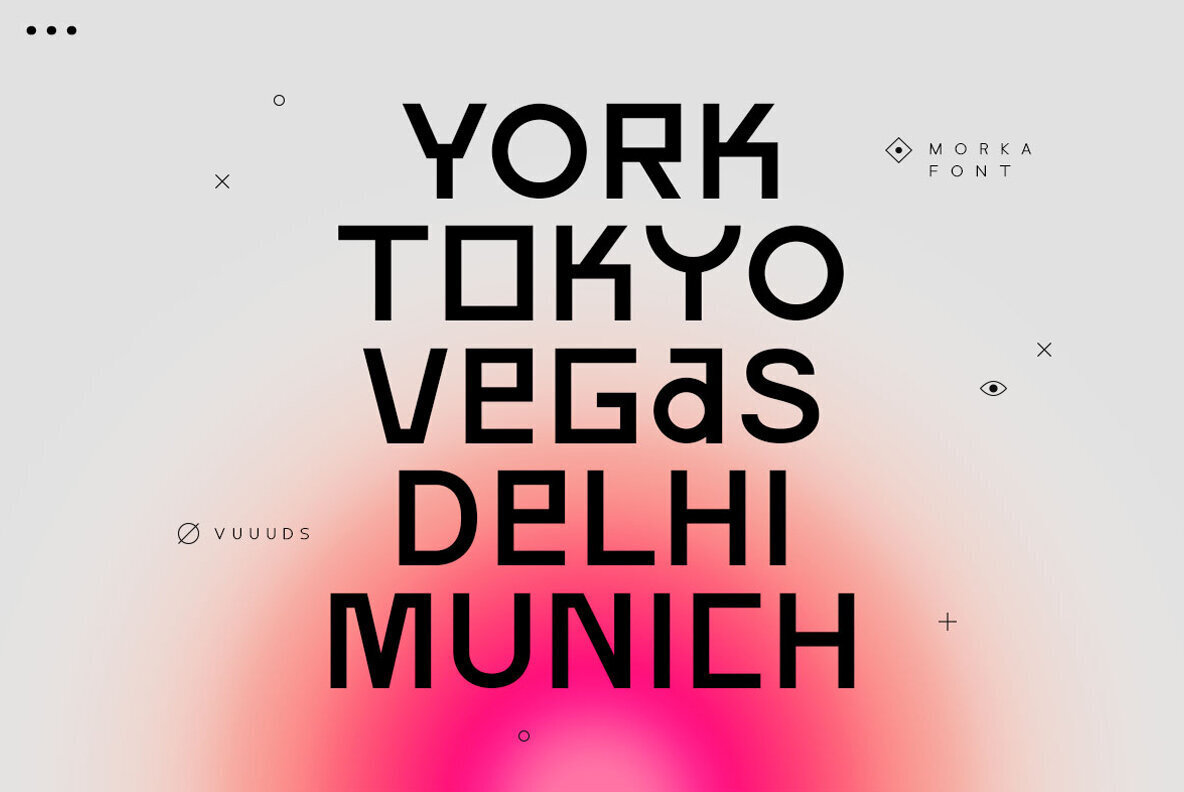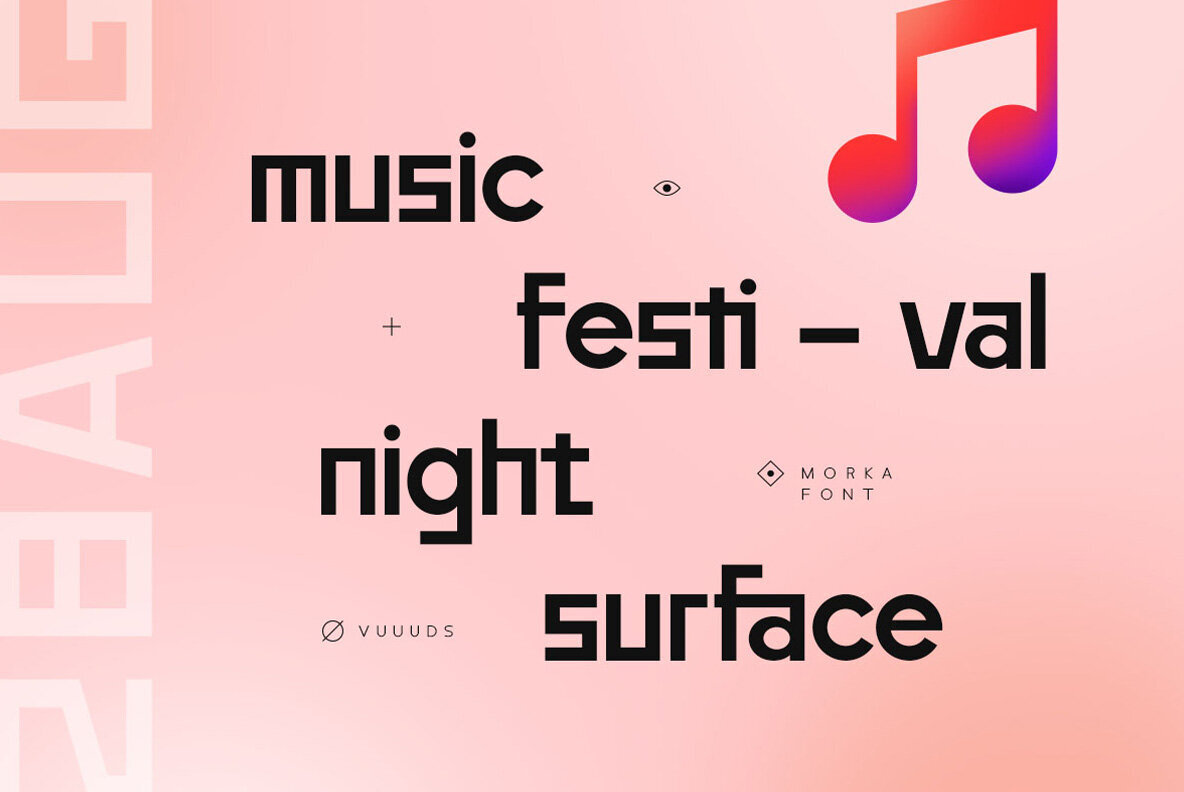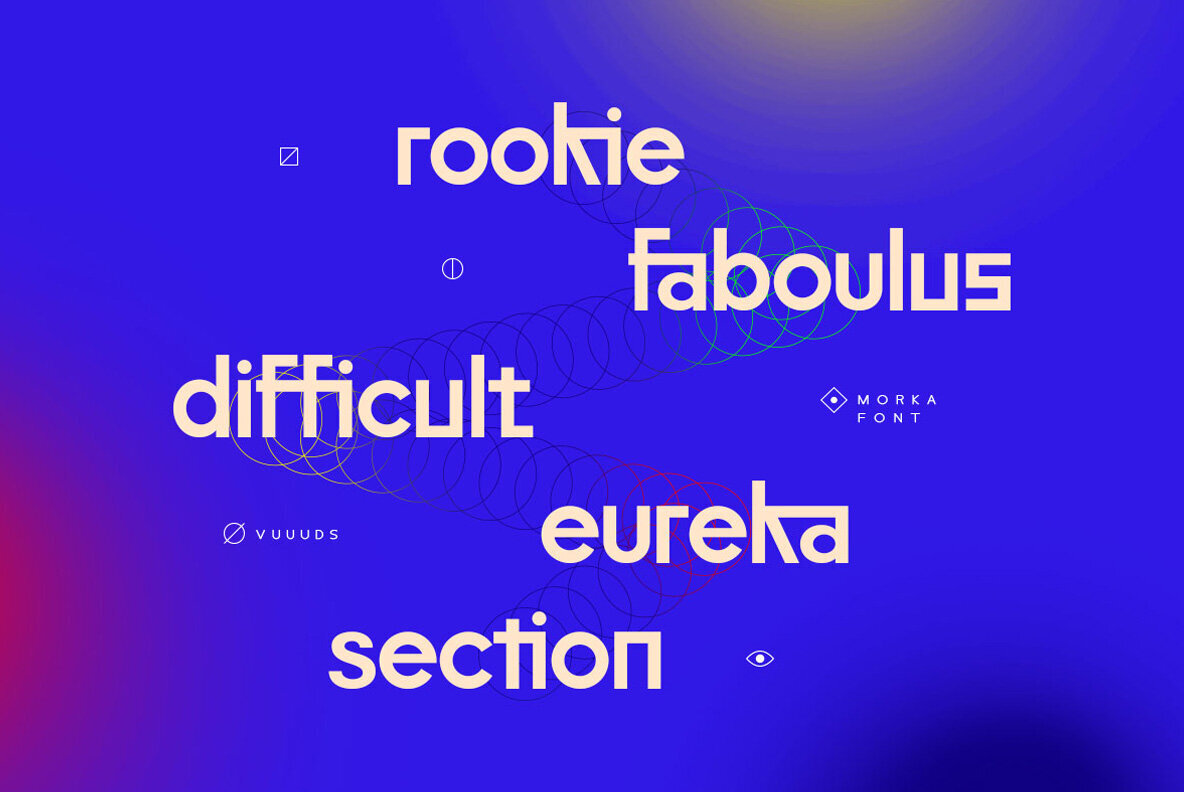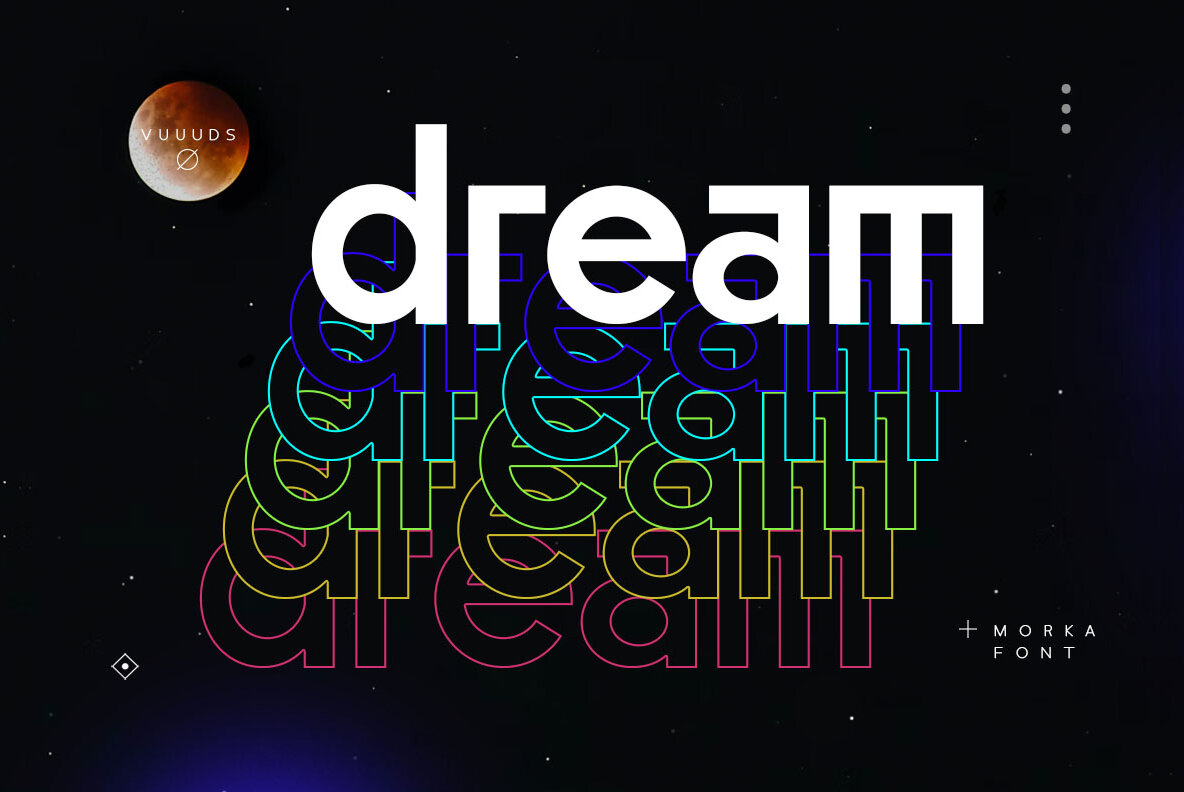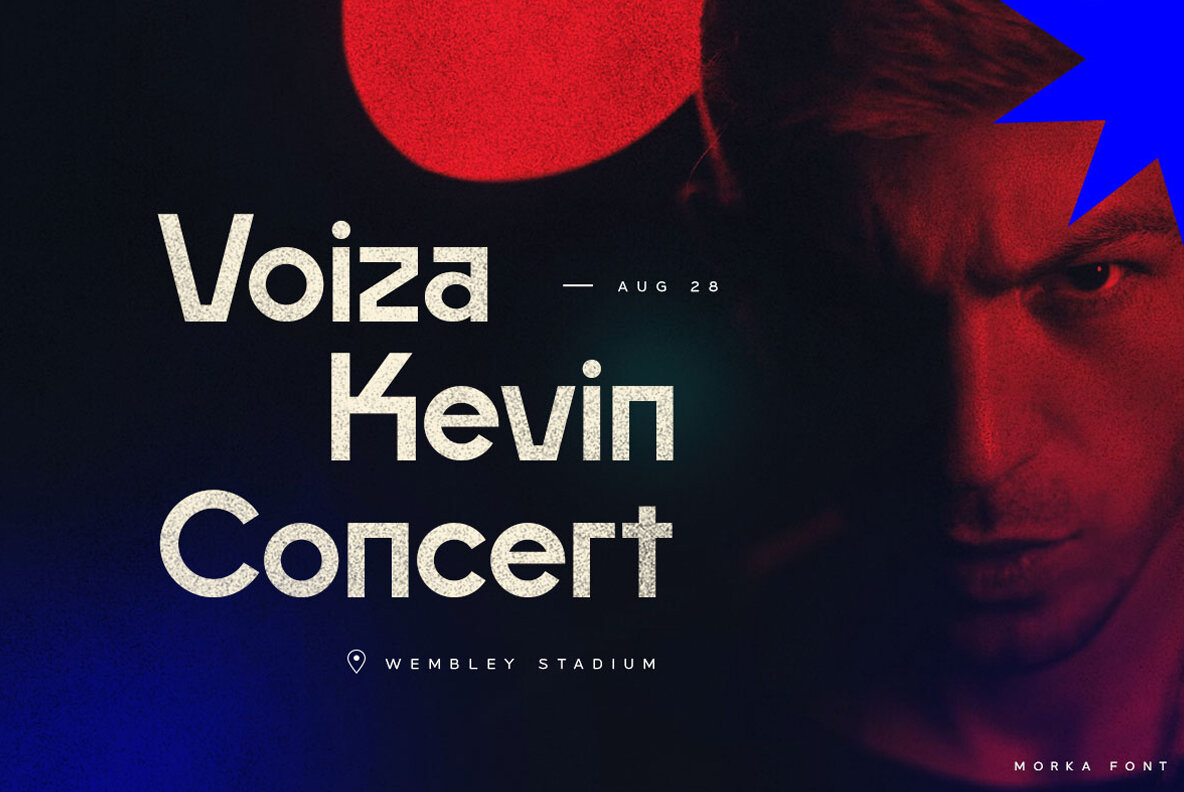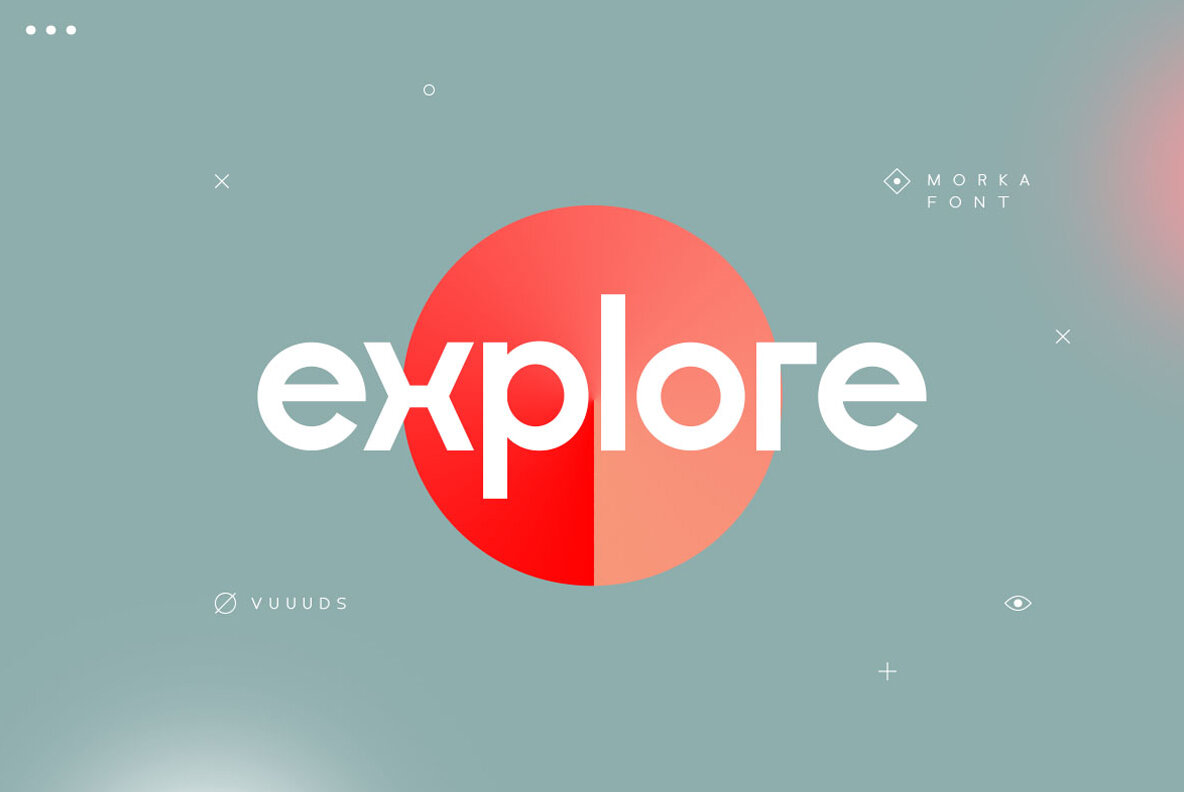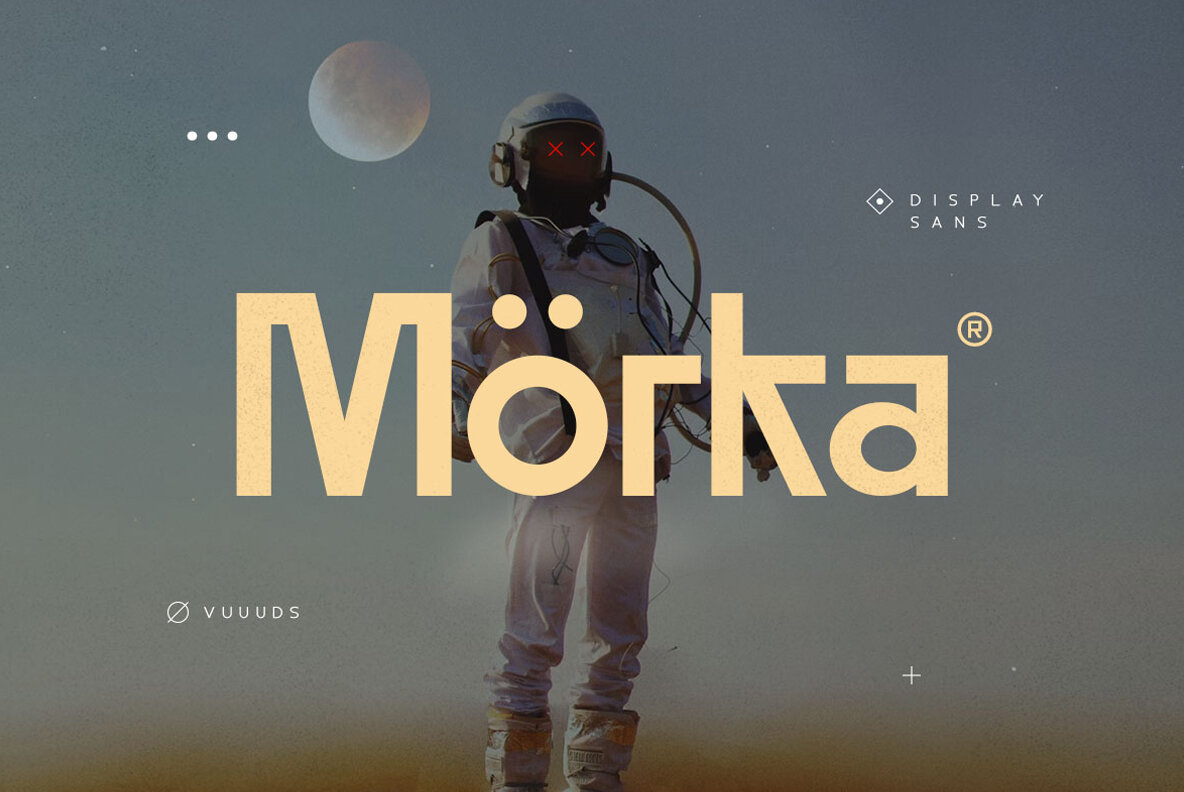
Morka Font
Morka
Morka is a modern display font that every single character has been carefully crafted to make your text look unique. This includes beautiful alternate glyphs so you can access them via FontBook (for Mac users) or Windows Character Map.